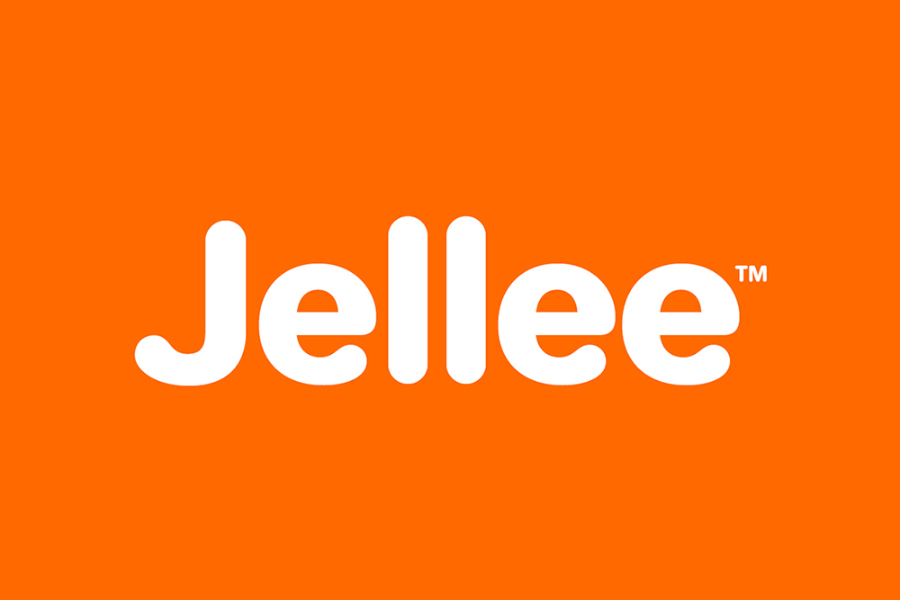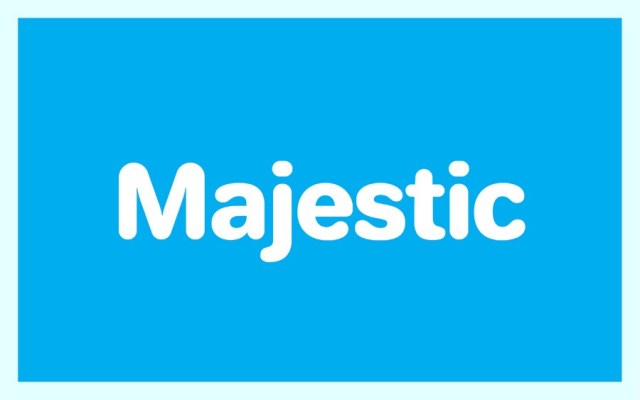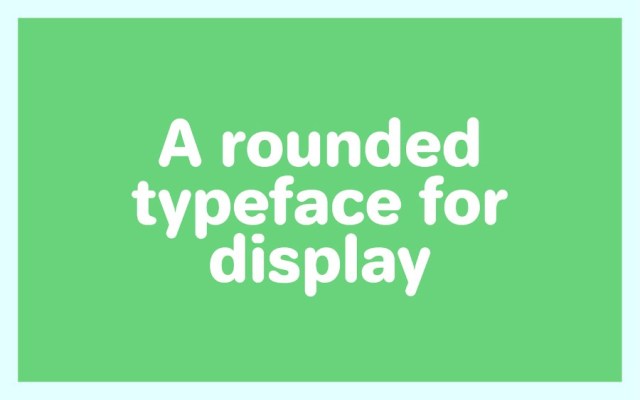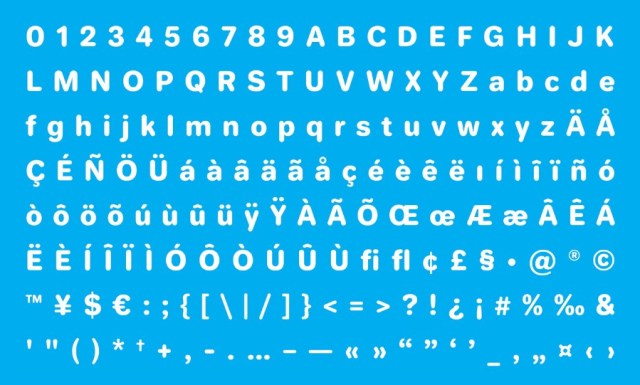
Jellee Typeface
Jellee is a typeface created to look fine and friendly. This sans serif font can be very useful for you next creative project. It looks very good on logo and branding design, readable in both big and small size. Add Jellee on your design and you will have more pleasant touch on it!